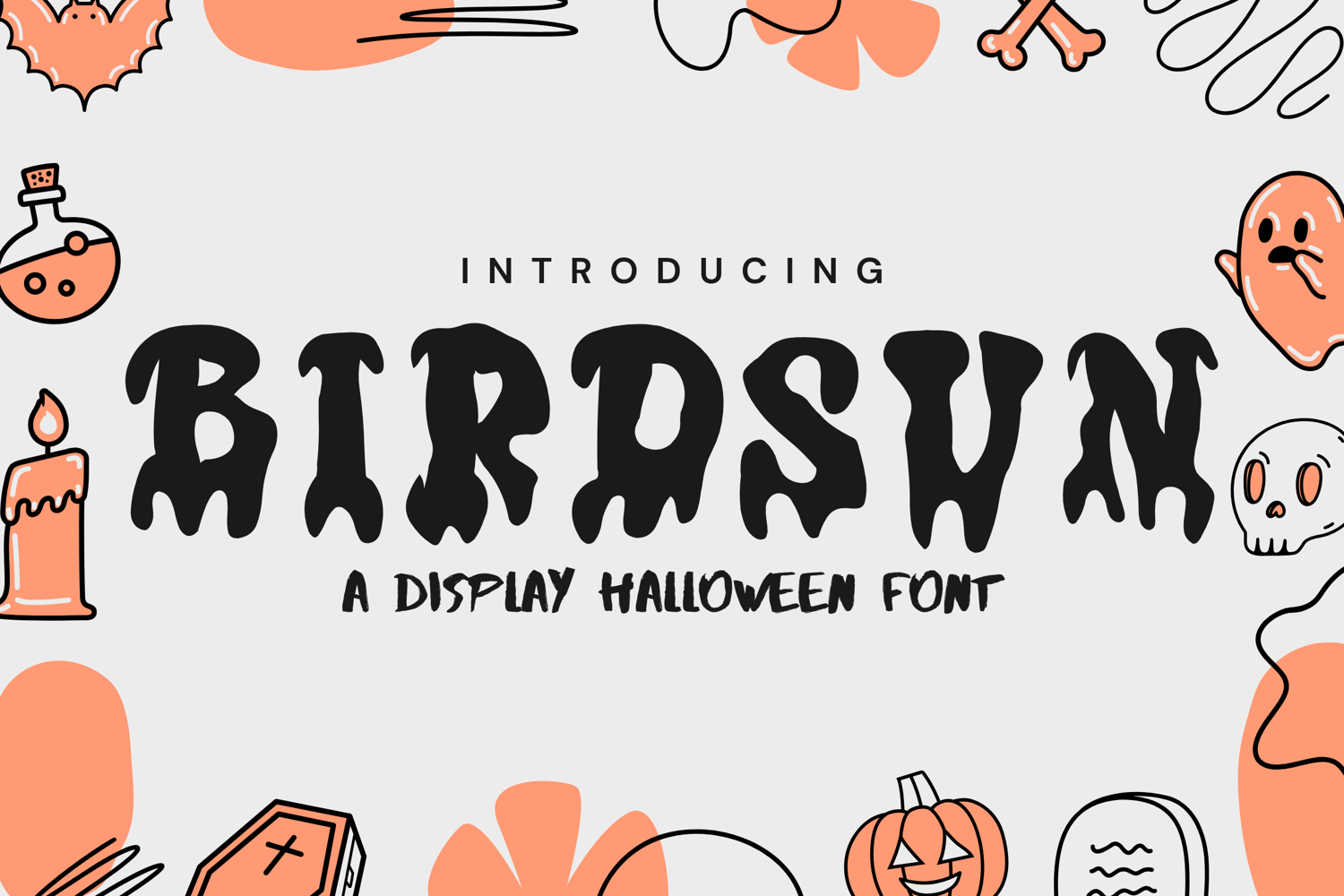
Birdsun Halloween - Spooky Fun Display Font
Birdsun Halloween
Get ready to haunt your designs in style with Birdsun Halloween, a playful and spooky display font perfect for all your Halloween creations. With quirky letterforms and a touch of eerie charm, this font is ideal for making your projects scream fun — not fear!
Whether you're crafting party invitations, spooky merch, treat bag labels, or Halloween-themed social media posts, Birdsun Halloween brings the perfect blend of mischief and creativity to the table.
👻 Perfect For:
• Halloween invitations & flyers
• Party decor & posters
• Kids’ crafts & trick-or-treat tags
• Cricut & Silhouette projects
• T-shirt designs & spooky merch
• Social media graphics